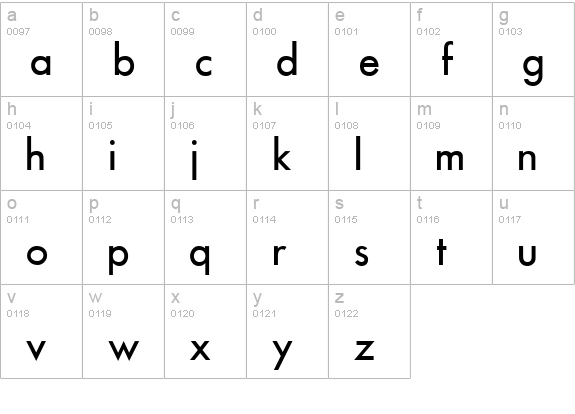
Futura ICG is a modern and versatile sans-serif font that exudes sophistication and elegance. Its clean lines and geometric shapes make it perfect for a wide range of design projects, from branding to editorial design. With its timeless appeal, Futura ICG is a classic choice that never goes out of style. What sets Futura ICG apart is its unique design features, including a range of weights and styles that allow for maximum flexibility in design applications. Whether you need a bold headline or a sleek body text, Futura ICG has you covered. The best part about Futura ICG is that it is available for free download at FontsMarket.com. This means you can start using this stunning font in your projects right away, without any cost. Don't miss out on the opportunity to enhance your designs with the timeless beauty of Futura ICG.